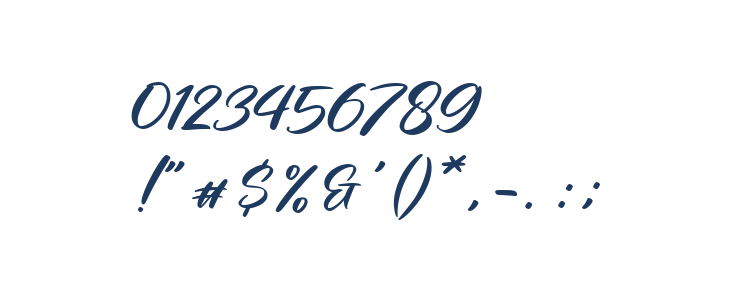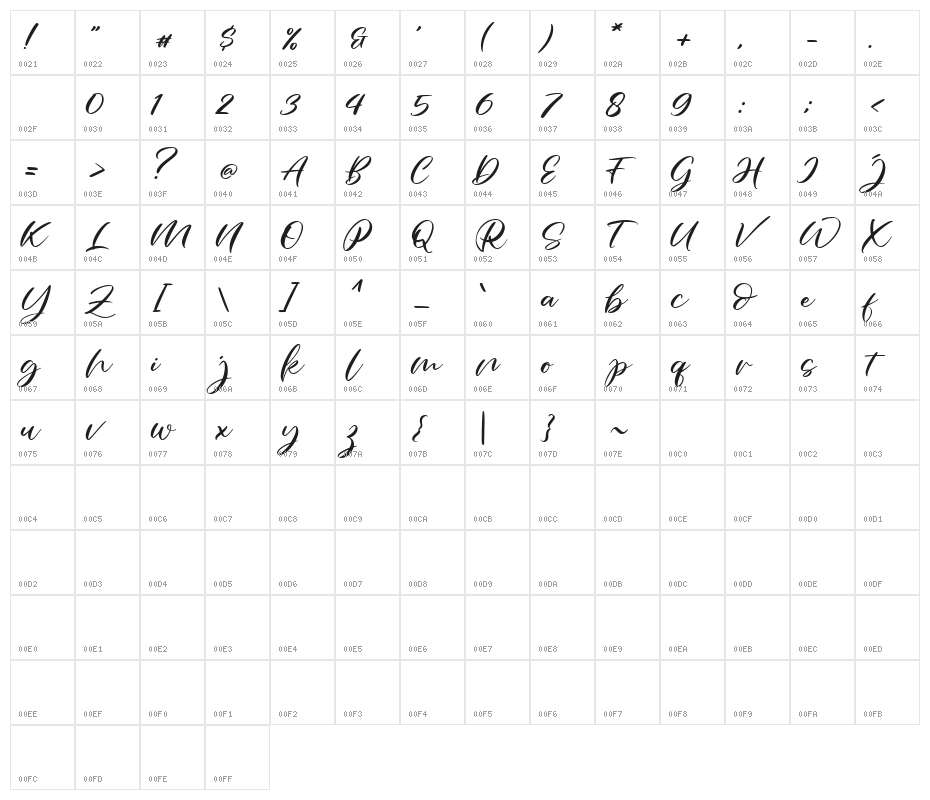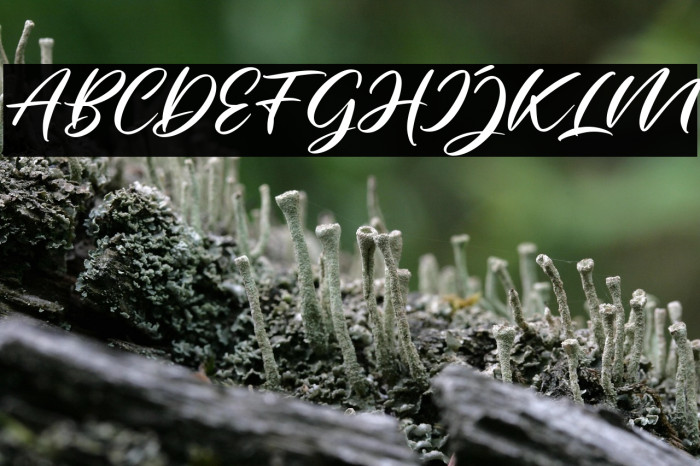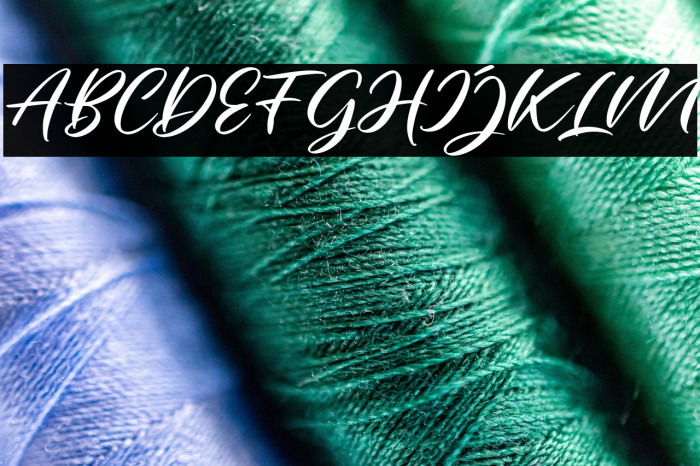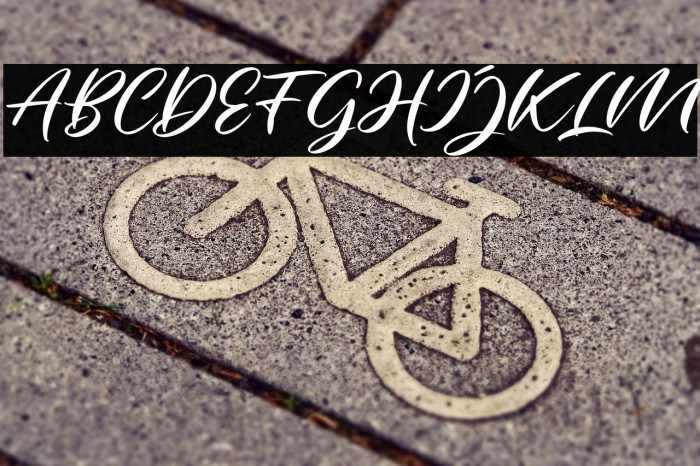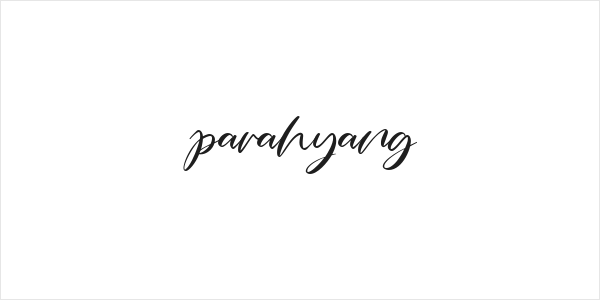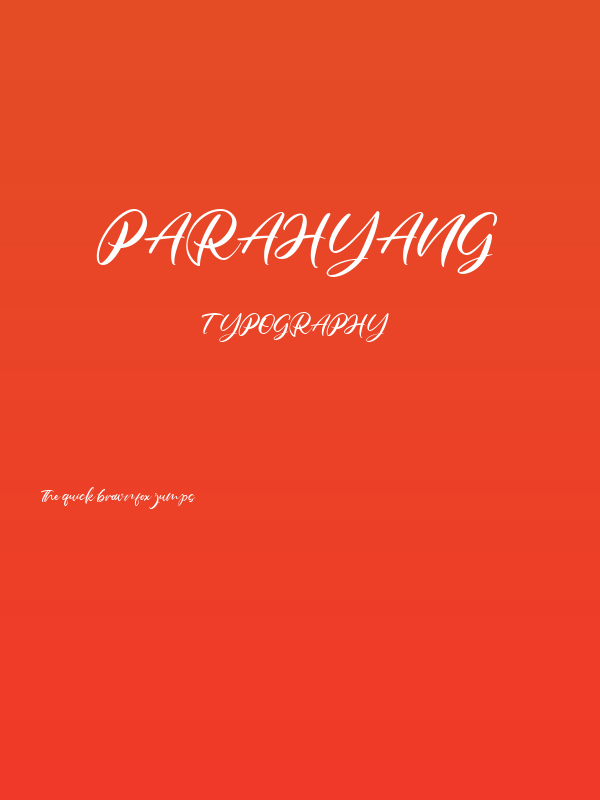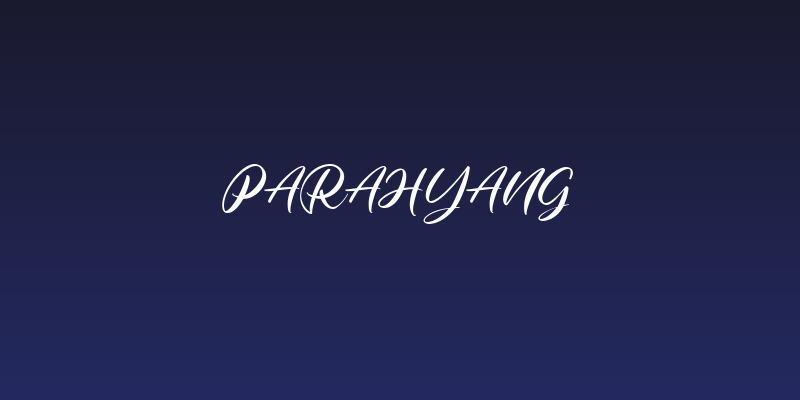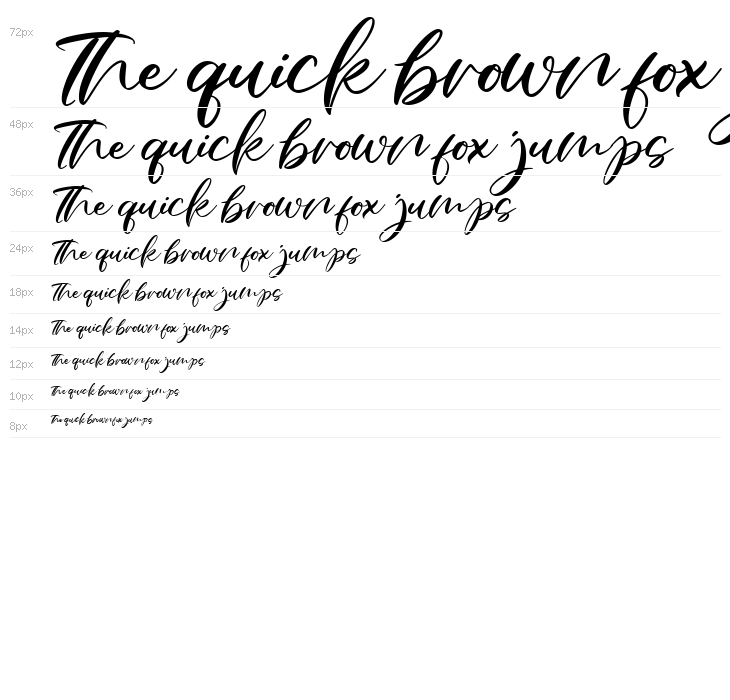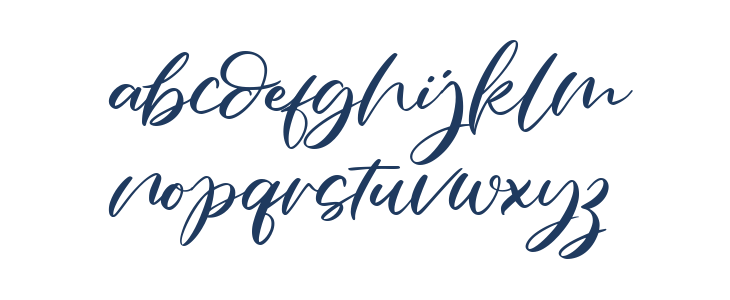
parahyang Font
parahyang Description
This font features a dynamic and flowing script style, characterized by its elegant and fluid letterforms. The strokes are smooth and connected, giving it a handwritten appearance. The uppercase letters are bold and expressive, while the lowercase letters maintain a consistent flow, enhancing readability. The numerals and special characters are crafted with the same attention to detail, ensuring a cohesive look across all text elements. This font exudes a sense of sophistication and creativity, making it suitable for a variety of design applications.
| Overall Style | Elegant |
| Use Case | Logos, Invitations, Branding |
| Proposed Projects | Ideal for wedding invitations, branding, greeting cards, and elegant packaging designs. |